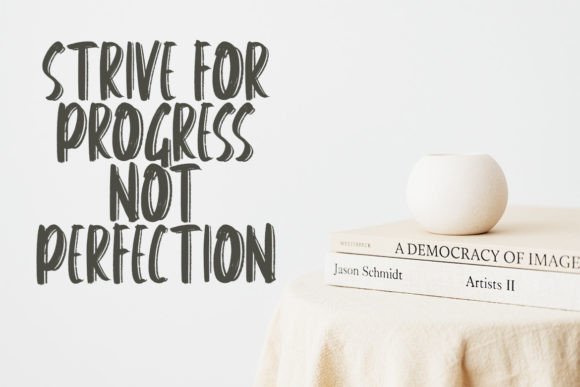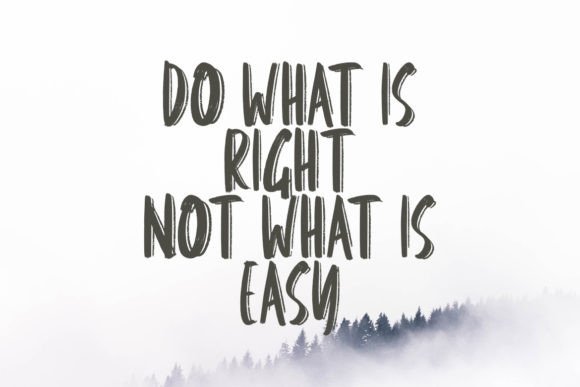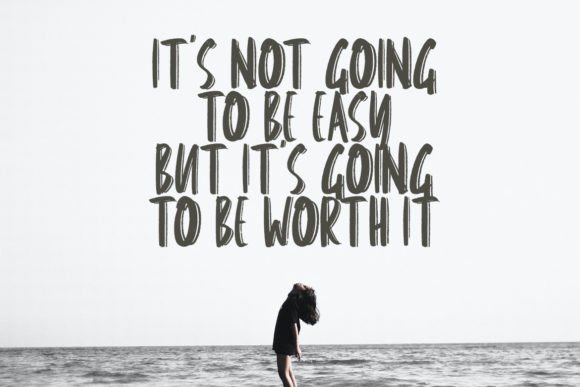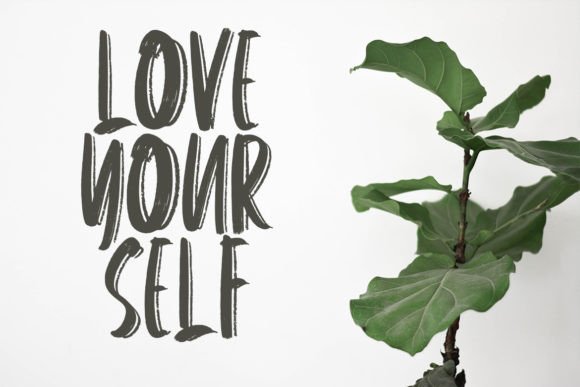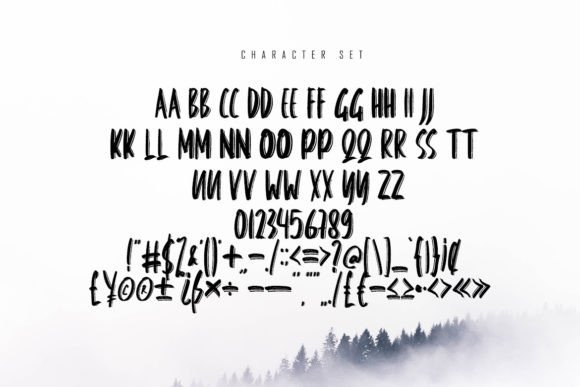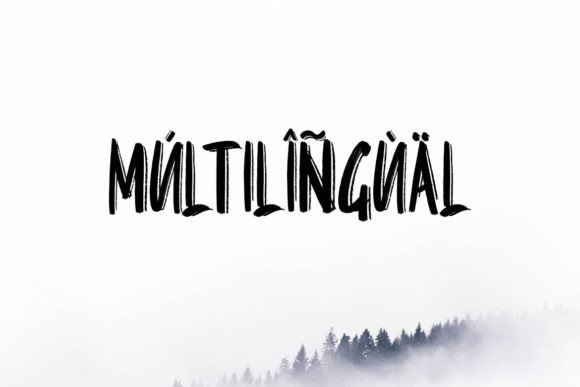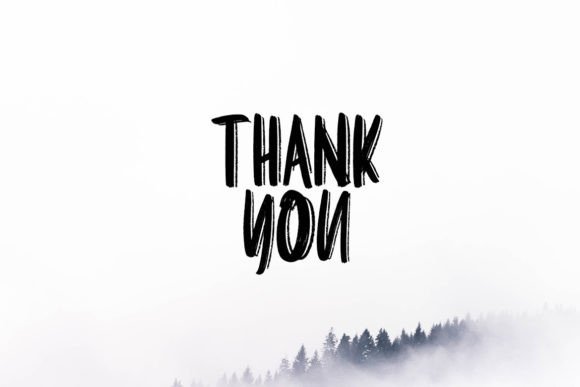
Brusqe Font
About Brusqe Font
Introducing “Brusqe,” a unique handwritten font that possesses a rough, brush-like texture. This font is crafted to bring a natural and exquisite typography style to your creative projects, adding a touch of authenticity and creativity.
The distinctiveness of “Brusqe” lies in its rough and organic brush texture, making it an ideal choice for projects that require a natural and artistic feel. Whether you’re working on creative designs, posters, invitations, or any other project, this font adds a unique and handcrafted element to your text.
Incorporate “Brusqe” into your designs and witness how it enhances the overall authenticity with its rough and brush-like texture. This font is designed to be versatile, making it suitable for a variety of creative applications where a natural and exquisite typography style is desired.
In summary, “Brusqe” is more than just a font; it’s a creative tool designed to bring a unique and handcrafted touch to your projects. Download “Brusqe” now and explore how it can elevate your creative designs, posters, and various other projects. With its rough brush-like texture, this font is ready to add a touch of authenticity to your creative endeavors.